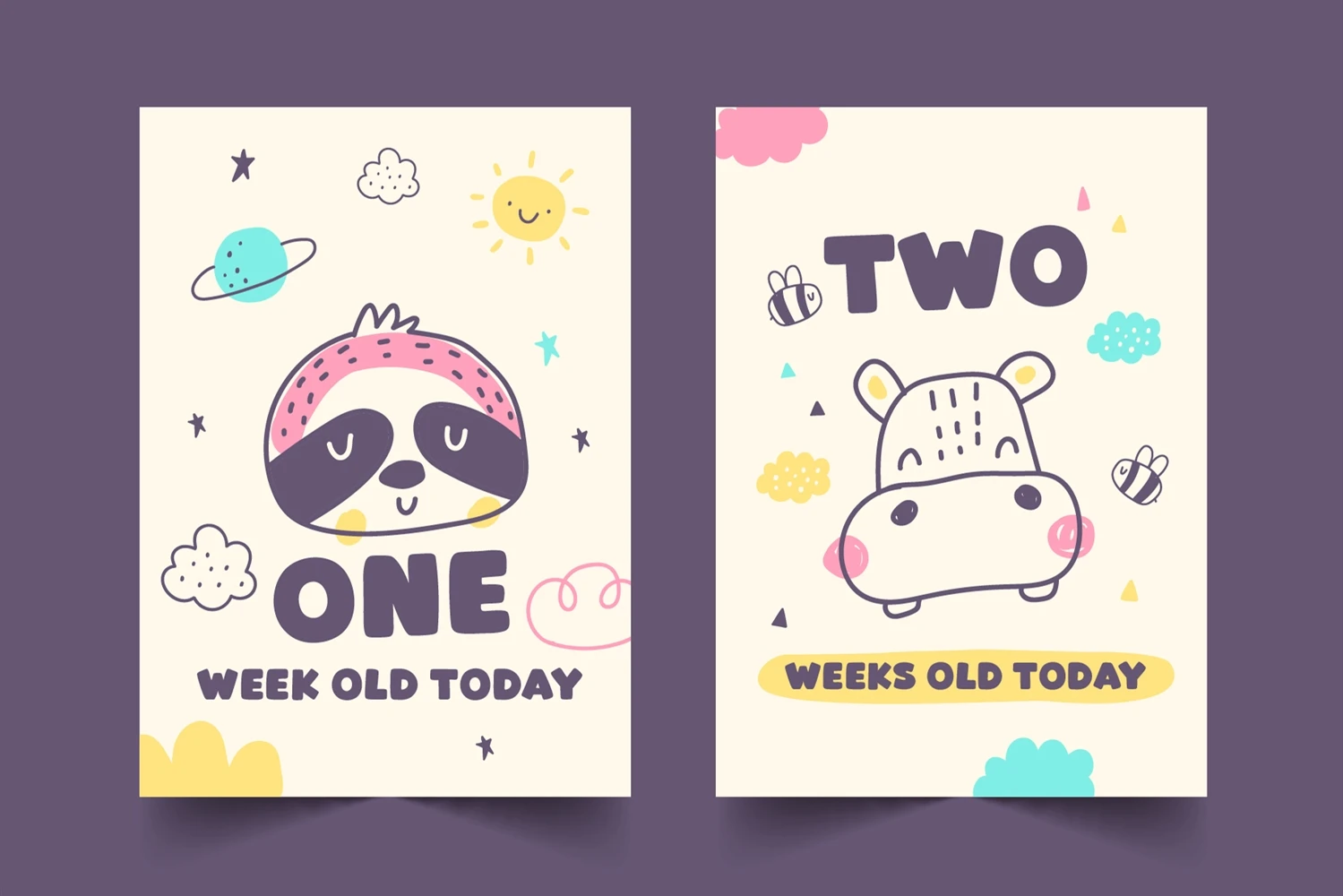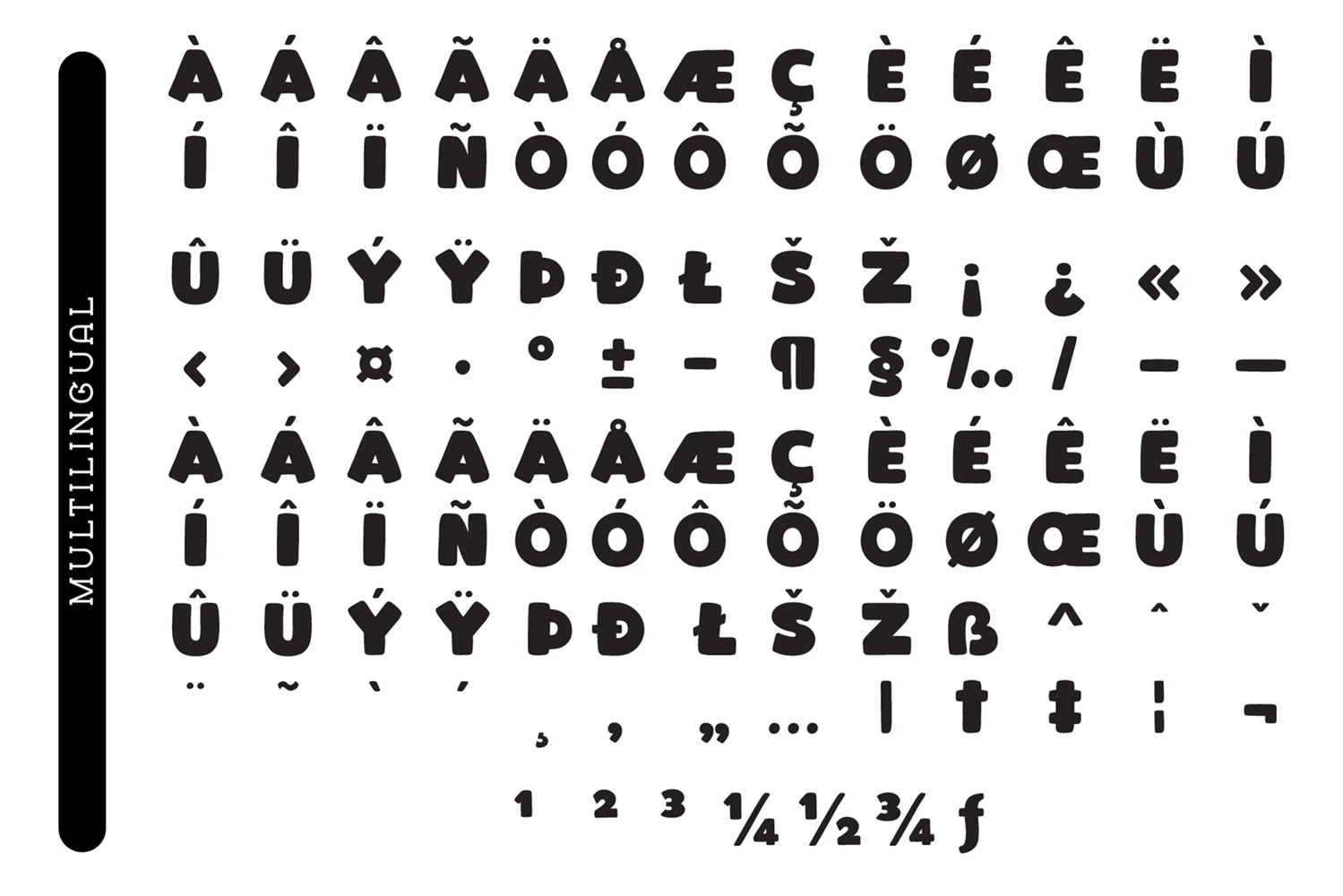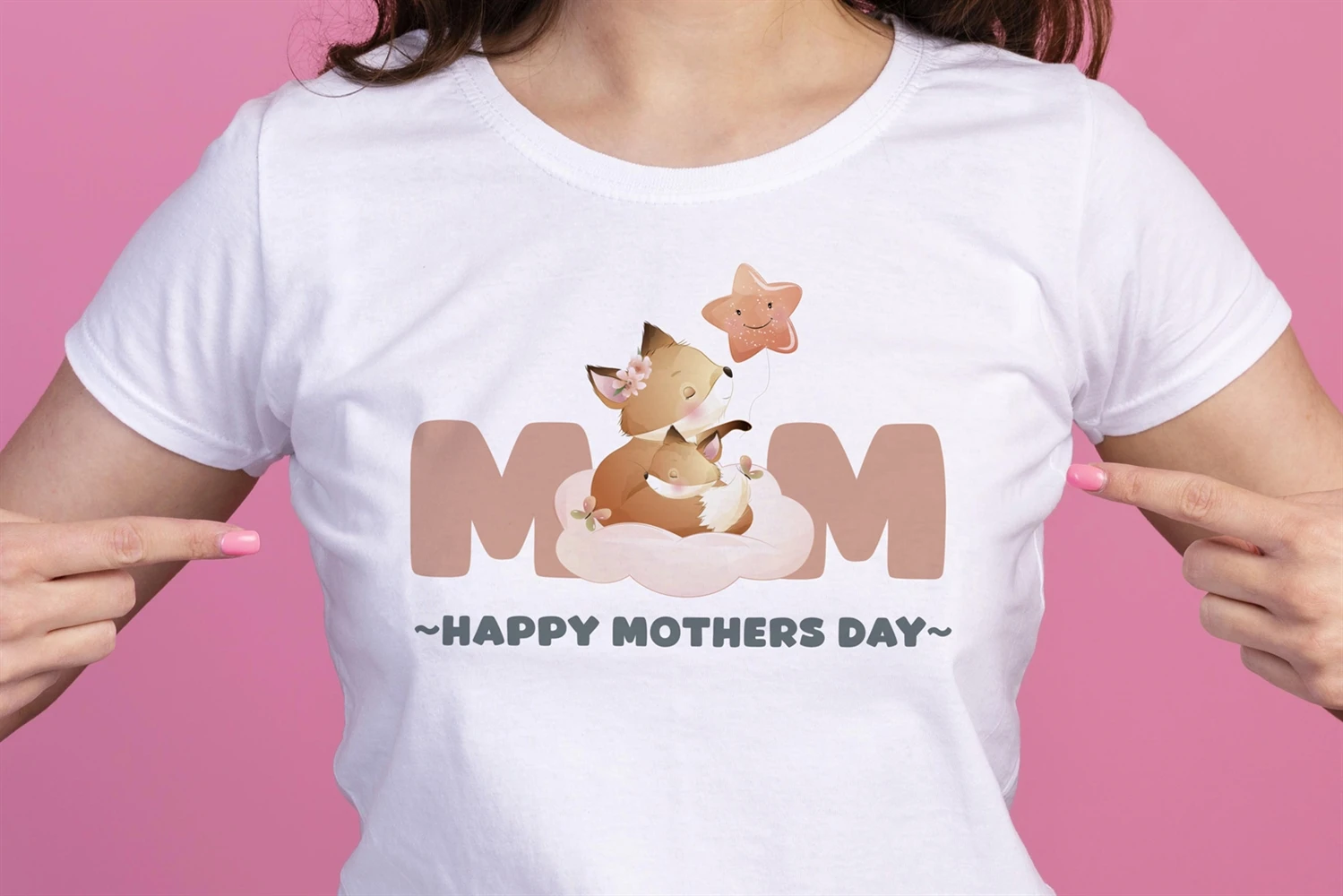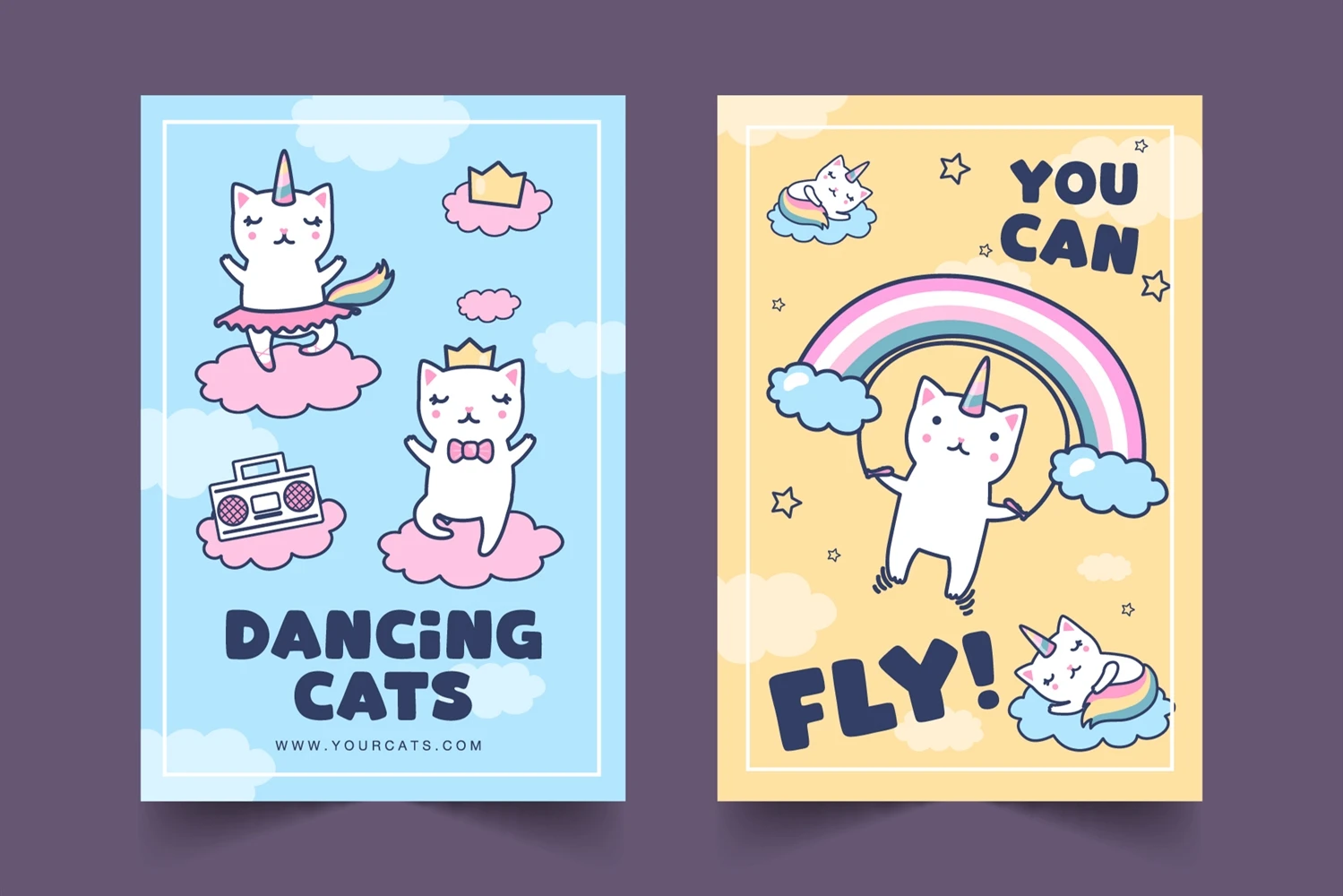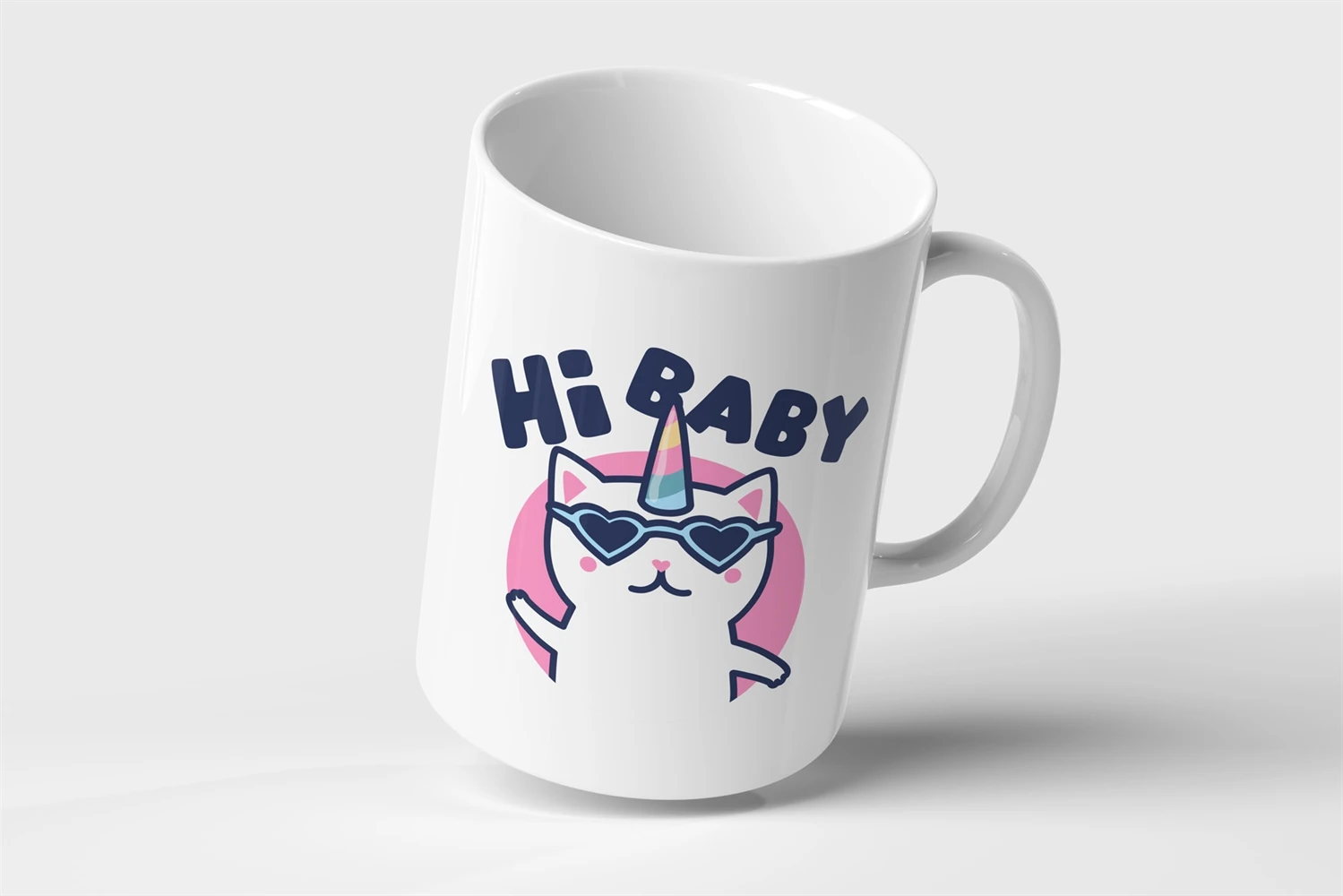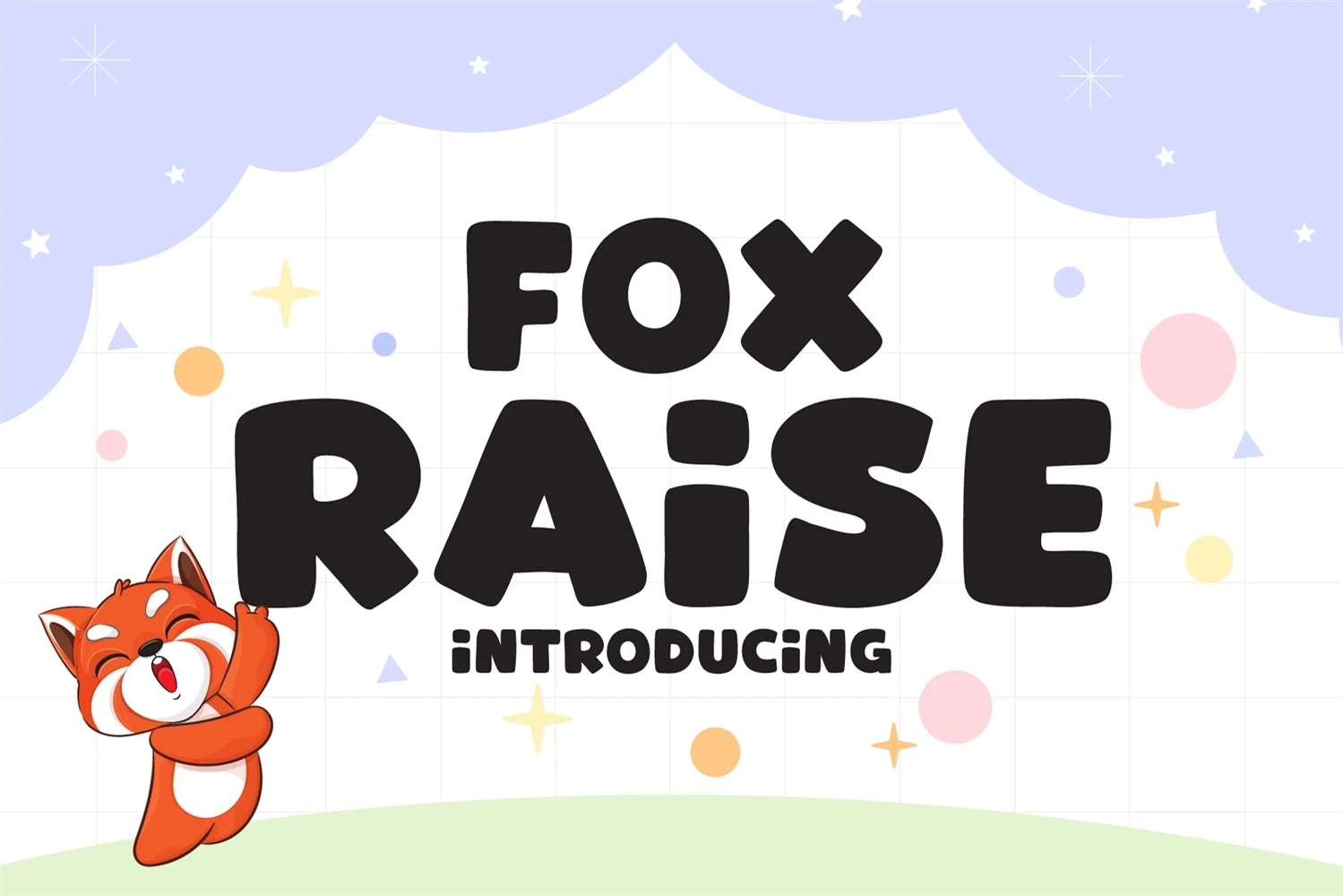
Introducing Fox Raise Font a Lively and Playful Display Typeface
The Fox Raise font is a delightful and captivating display typeface that will infuse your design projects with a sense of liveliness and playfulness. Written in bold and easy-to-read handwriting, this font is designed to add a touch of personality to any creative endeavor.
With its charming and expressive letterforms, Fox Raise is perfect for a wide range of design applications. Whether you're working on T-shirt designs, stickers, children's book covers, social media posts, or anything in between, this font will instantly make your creations stand out.
The Fox Raise font is a delightful and captivating display typeface that will infuse your design projects with a sense of liveliness and playfulness. Written in bold and easy-to-read handwriting, this font is designed to add a touch of personality to any creative endeavor.
With its charming and expressive letterforms, Fox Raise is perfect for a wide range of design applications. Whether you're working on T-shirt designs, stickers, children's book covers, social media posts, or anything in between, this font will instantly make your creations stand out.